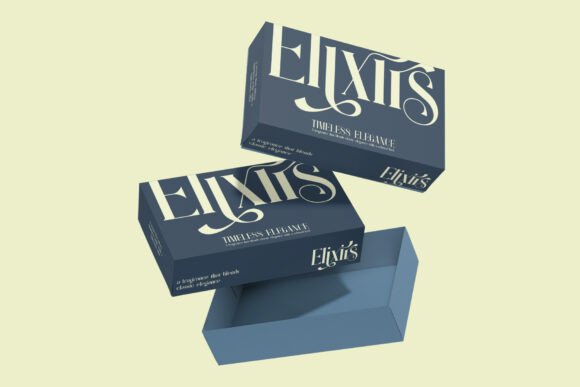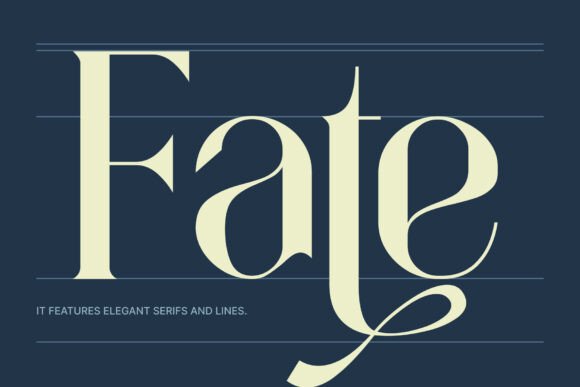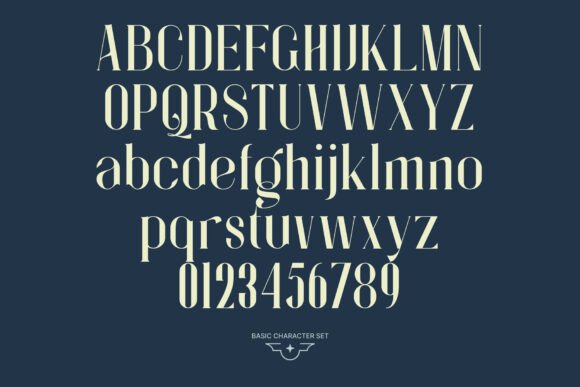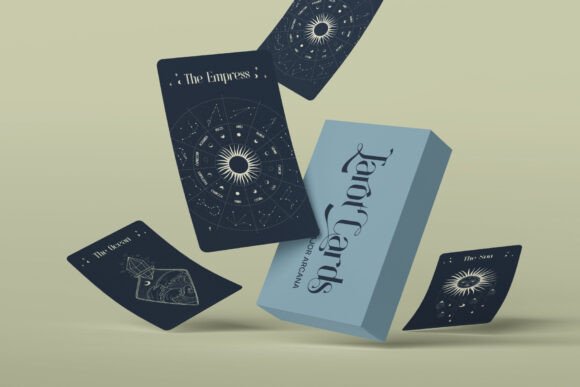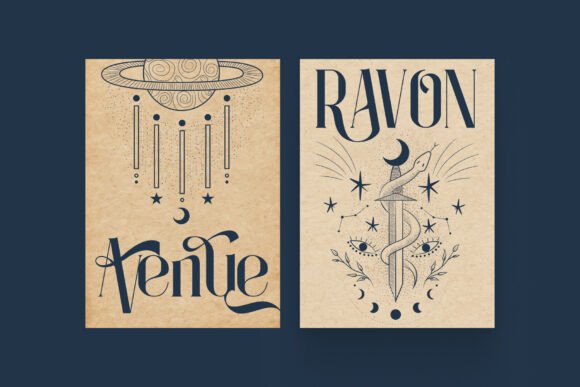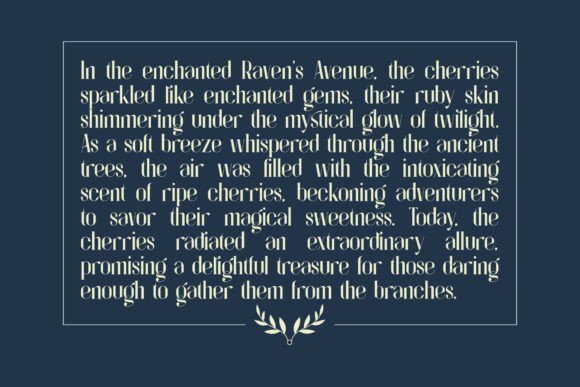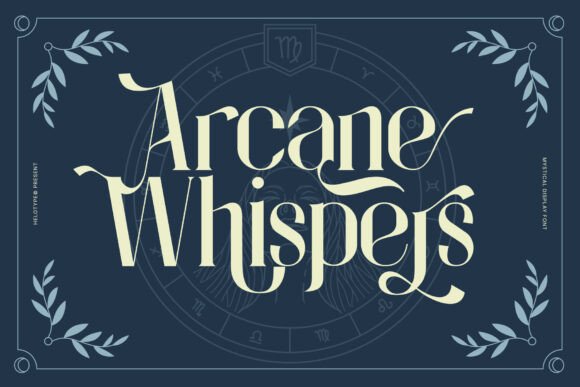
Unleash the Enchantment: Discover the Magic of Arcane Whispers Font
I’ll never forget the design project that led me to discover Arcane Whispers. I was working on a branding campaign for a mystical wellness brand, and I was struggling to find the perfect font that captured their essence. The client wanted something that conveyed ancient secrets, celestial beauty, and a touch of whimsy. I scoured the internet, tried out countless fonts, but nothing seemed quite right. That was until I stumbled upon Arcane Whispers – a captivating font that blends classic elegance with a touch of the mystical.
A Closer Look: What Makes Arcane Whispers Special
Arcane Whispers is inspired by timeless serif styles, reimagined with magical swashes and intricate ligatures. This font is perfect for projects that demand a whisper of wonder. Here are some things I love about Arcane Whispers:
• ✨ Elegant and sophisticated, yet playful and whimsical
• ✅ Intricate ligatures and swashes that add a touch of magic to your designs
• 🔥 Perfect for branding, invitations, book covers, product packaging, and more
• 💫 Evokes ancient secrets, celestial beauty, and whimsical charm
While Arcane Whispers is a stunning font, it’s not without its quirks. Here are a few things to keep in mind:
• 🤔 Some of the swashes and ligatures can be a bit finicky to work with, especially for beginners
• ⚠️ The font may not be suitable for very small text sizes or body text, as it can become a bit ornate
The Story Behind Arcane Whispers
The story behind Arcane Whispers is shrouded in mystery, but allegedly, the font’s creator was inspired by ancient tomes and mystical artifacts. They wanted to create a font that captured the essence of the mystical and unknown, while still being elegant and sophisticated.
Is Arcane Whispers suitable for body text? While Arcane Whispers is a beautiful font, it’s best suited for headlines, titles, and short paragraphs. It may not be suitable for long-form body text due to its ornate nature.